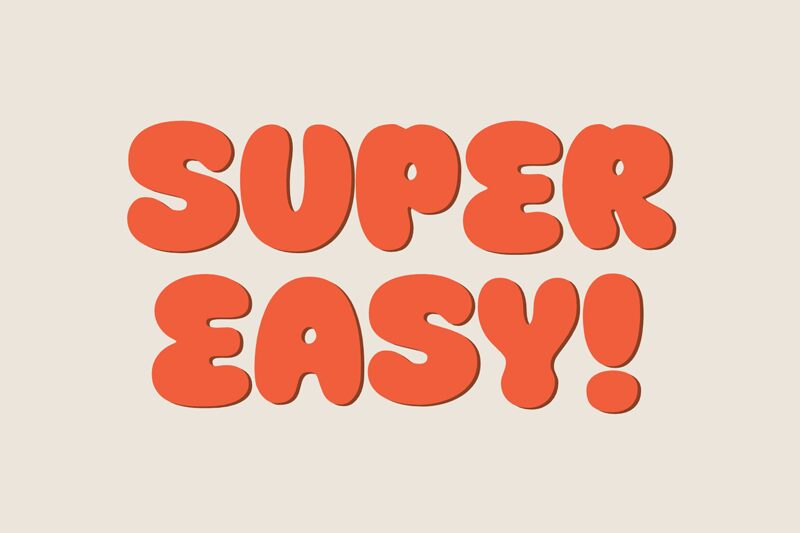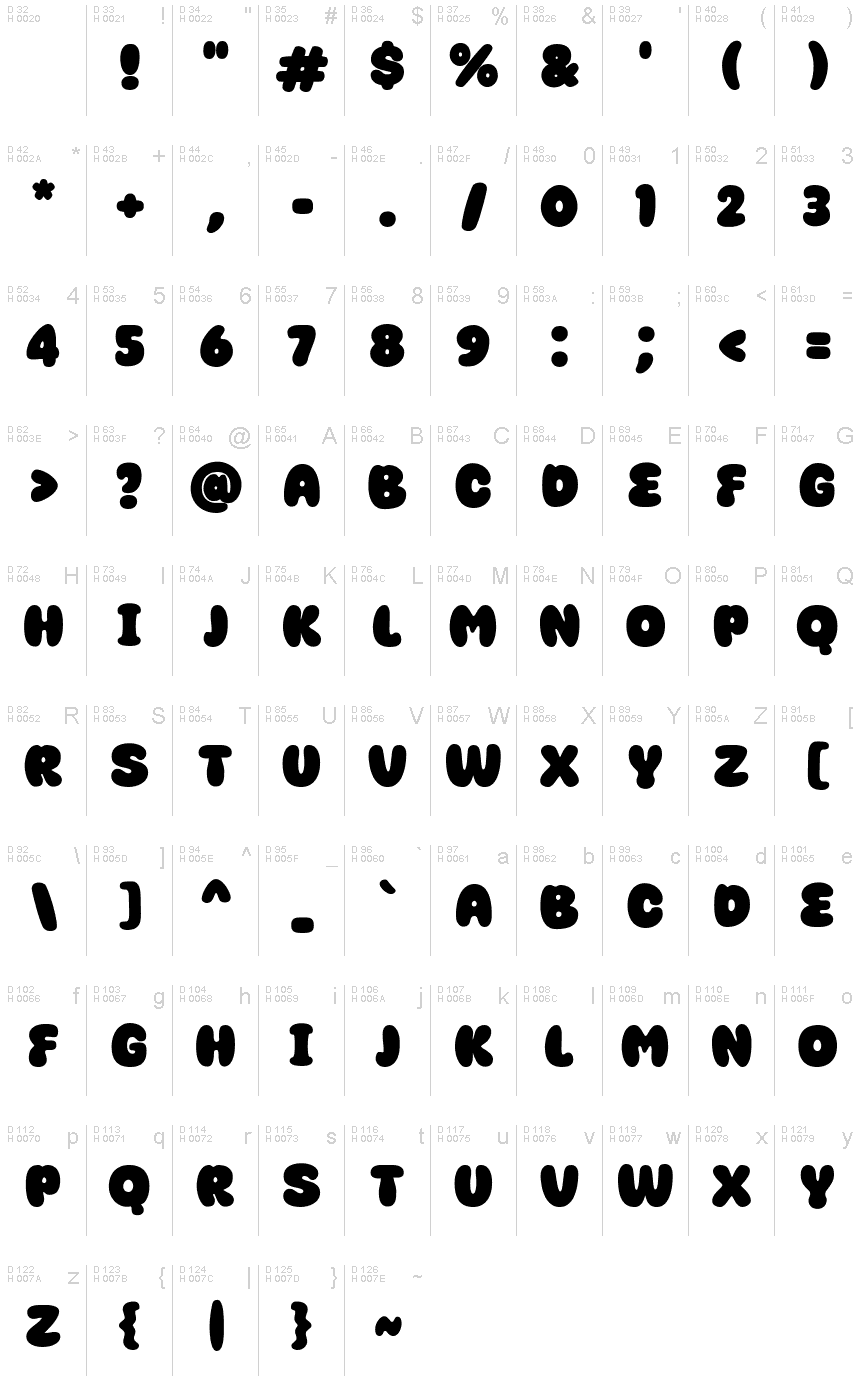
Super Easy
Super Easy, created by the talented fsuarez913, is a captivating display font that brings a playful cartoon vibe to any project. With its ultra-bold weight, this font demands attention and adds a touch of whimsy to various designs. Perfect for children's book covers, animated movie posters, or even eye-catching logos for entertainment companies, Super Easy injects an element of fun and excitement. Its boldness ensures readability while making a bold statement. Unleash your creativity and let Super Easy do the heavy lifting in projects that require a dash of joy and an unforgettable visual impact.